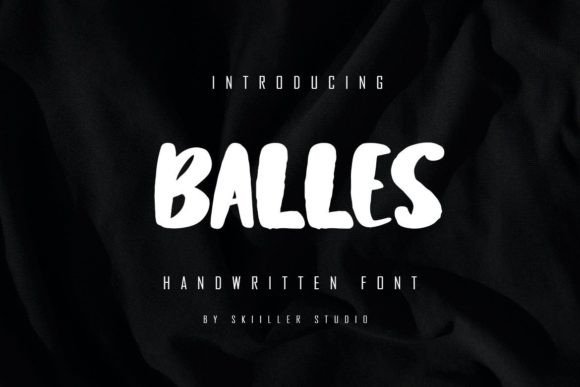
Introducing Balles: A Stylish Display Font for Modern Design
When it comes to creating visually striking headlines and logotypes, the right font can make all the difference. Balles is a modern and brushed display font that brings a fresh, confident energy to your design projects. With its clean lines and dynamic feel, Balles adds a touch of urban flair that works well in both digital and print formats.
Designed with versatility in mind, Balles combines elements of a sans-serif font with subtle brush strokes that give it a handcrafted, contemporary look. This unique blend makes it ideal for projects where you want to convey strength and style without sacrificing readability. Whether you're working on a logo, a website header, or a social media graphic, Balles offers a bold yet refined presence that stands out.
Where Balles Shines in Design Projects
From branding to editorial design, Balles finds its place in a variety of creative applications. Its strong visual identity makes it a great choice for logos that need to communicate confidence and modernity. In web design, it can be used for headings that demand attention while maintaining a clean aesthetic. For print materials like packaging or posters, Balles adds a professional edge that feels both current and timeless.
In the world of social media graphics, Balles can help your content stand out in a crowded feed. Its dynamic shape and brushed texture lend themselves well to eye-catching callouts, banners, and promotional materials. For bloggers and publishers, using Balles in headlines or section titles can create a more engaging reading experience, especially when paired with complementary typefaces.
How Balles Influences Brand Perception and Engagement
The right font plays a crucial role in how audiences perceive a brand. Balles, with its confident and stylish appearance, can help reinforce a brand’s personality—whether it's looking to project professionalism, creativity, or a sense of urban sophistication. When used consistently across marketing materials, it contributes to a cohesive brand identity that builds recognition over time.
Readability is also an important factor, especially when using a display font like Balles. While it’s not intended for body text, it excels in short phrases and headlines where clarity and impact are key. By choosing the right size and spacing, you can ensure that Balles remains legible while still making a strong visual statement.
Choosing the Right Font: Practical Tips for Using Balles
Before incorporating Balles into your design, consider the context and purpose of the project. If you're working on a logo, test how Balles looks at different sizes and in various color schemes. For web use, check how it renders on different devices and browsers to ensure consistency.
Font pairing is another essential consideration. Balles works well with other modern fonts that have a similar weight and structure. For example, pairing it with a clean sans-serif like Roboto or Montserrat can create a balanced and professional look. Avoid pairing it with overly decorative or script fonts, as this may dilute its impact.
Real-World Applications and Design Observations
Imagine using Balles for a fashion brand’s website header. The font’s dynamic shape complements the trendiness of the brand while maintaining a polished appearance. In a packaging design, it could be used for product names or taglines to add a touch of elegance and modernity.
For a small business owner launching a new product line, Balles could serve as the primary font for promotional materials, helping to establish a strong visual identity. When paired with a neutral background and simple layout, it allows the font to take center stage without overwhelming the viewer.
As a designer, experimenting with Balles in different contexts can reveal its full potential. Try using it in a magazine spread, a social media post, or a mobile app interface to see how it adapts to various formats. Each application offers a unique opportunity to explore its strengths and limitations.